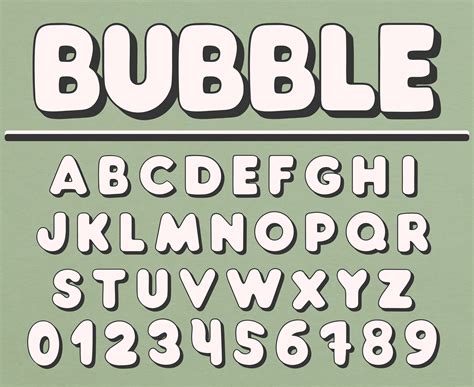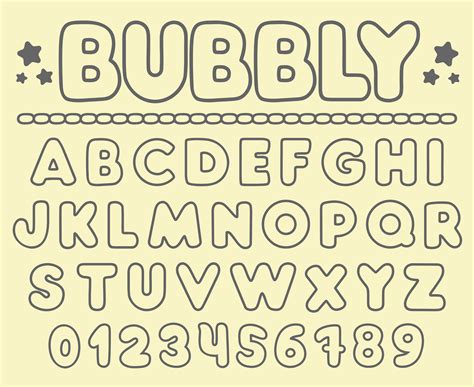
Bubble Letter Fonts: Alphabet Styles for Fun Projects
Readers, have you ever wanted to add a touch of whimsy and personality to your projects, but felt limited by traditional fonts? Do you dream of creating eye-catching designs that stand out from the crowd? If so, you're in for a treat! This journey into **bubble letter fonts** will open up a world of creative possibilities, transforming your everyday projects into playful masterpieces.
With a passion for exploring the diverse world of fonts, I've dedicated myself to understanding **bubble letter fonts** and their unique impact on design. I've delved into their history, analyzed their characteristics, and explored their application in various projects. Let's dive into the vibrant world of **bubble letter fonts** and discover how you can unleash your creativity with these playful alphabets.
The Allure of Bubble Letter Fonts
**Bubble letter fonts**, also known as balloon or bouncy letters, are instantly recognizable for their rounded, inflated-looking characters. They evoke a sense of fun, playfulness, and a touch of nostalgia, often reminiscent of childhood cartoons and comic books. But **bubble letter fonts** are much more than just a stylistic choice; they possess a unique charm that can transform your projects into captivating visual experiences.
The rounded nature of **bubble letter fonts** adds a sense of softness and warmth to your designs, making them visually appealing and approachable. Whether you're designing a birthday card, a social media post, or a logo, **bubble letter fonts** can inject a dose of personality and make your message stand out.
Unveiling the World of Bubble Letter Fonts
The Origins of Playful Lettering
The roots of **bubble letter fonts** can be traced back to the early days of graphic design, where artists sought to create visually engaging and expressive lettering styles. The desire to break free from traditional, rigid fonts led to the development of playful and dynamic styles, including **bubble letters**. These early designs, often found in comic books and advertisements, laid the foundation for the evolution of **bubble letter fonts** into the diverse range of styles we see today.
The Evolution of Bubble Letter Fonts
Over time, **bubble letter fonts** evolved beyond their simple, rounded beginnings. Designers experimented with different shapes, textures, and embellishments, creating a vast spectrum of styles. From bold and vibrant to delicate and whimsical, **bubble letter fonts** offer a wide range of options to suit any project. The introduction of digital fonts further expanded the possibilities, allowing designers to access a vast library of **bubble letter fonts** at their fingertips.
The Versatility of Bubble Letter Fonts
One of the greatest strengths of **bubble letter fonts** is their versatility. These playful alphabets can be used for a wide range of projects, from personal creations to professional applications. Whether you're designing a birthday card, a logo, or a website, **bubble letter fonts** can add a unique touch and make your message stand out.
Exploring Popular Bubble Letter Fonts
Comic Sans
Comic Sans, perhaps the most iconic **bubble letter font**, is known for its playful and casual style. Its rounded letters and slightly tilted appearance give it a friendly and approachable feel, making it a popular choice for informal projects, children's books, and social media graphics. However, Comic Sans has also become polarizing, with some designers criticizing its overuse and lack of elegance.
Bublebum
Bublebum is a highly stylized **bubble letter font** that adds a whimsical touch to any design. Its exaggerated curves and rounded forms evoke a sense of fun and joyful energy. Bublebum is ideal for projects where you want to create a playful and eye-catching visual impact. Its unique style makes it stand out from other **bubble letter fonts**, capturing attention and adding a touch of personality.
Chunky
Chunky is a **bubble letter font** that combines playful curves with a bold and confident style. Its thick strokes and rounded forms give it a strong visual presence, making it suitable for projects where you want to create a statement. Chunky's playful yet assertive nature makes it a versatile choice for both formal and informal projects.
Where to Find Bubble Letter Fonts
Free Online Font Libraries
The internet is a treasure trove of free online font libraries, where you can find a wide selection of **bubble letter fonts** to explore. These online resources offer a variety of styles and options, allowing you to download and use the fonts for personal and commercial projects. Popular websites include Google Fonts, Font Squirrel, and Dafont.
Paid Font Platforms
For a wider collection of high-quality **bubble letter fonts**, consider exploring paid font platforms. These platforms offer premium fonts with more advanced features and creative options. Well-respected options include Creative Market, MyFonts, and FontShop.